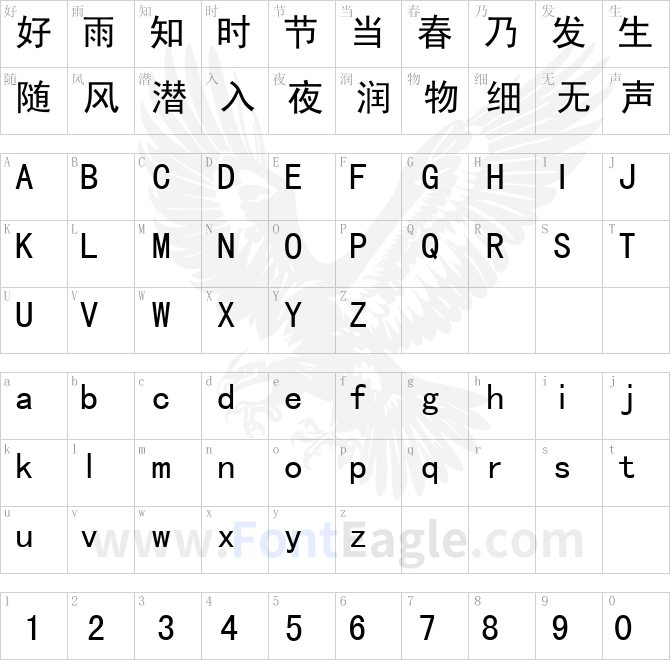
- Font name:黑体
- Font Subfamily ID:黑体
- Font Full Name:黑体
- Font Version:Version 3.02
- Postscript:黑体
- Font Copyright:(c) Copyright ZHONGYI Electronic Co. 1995